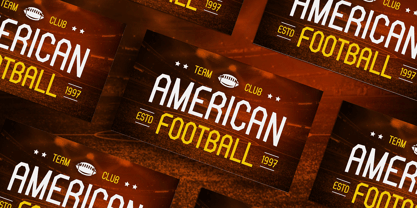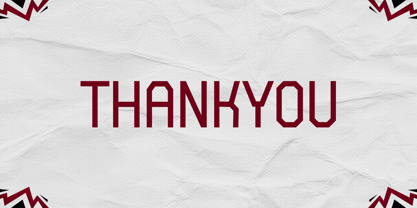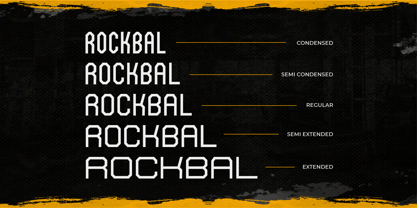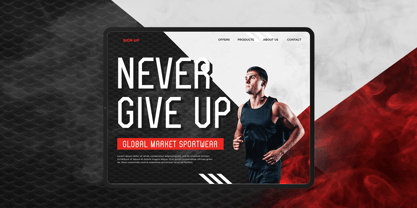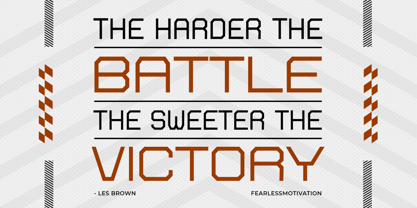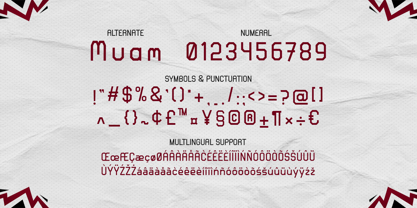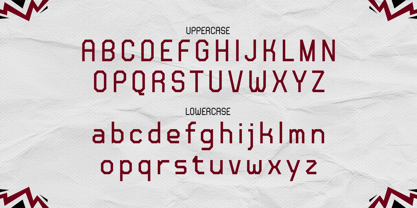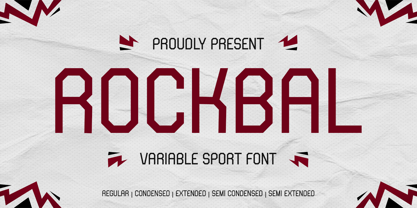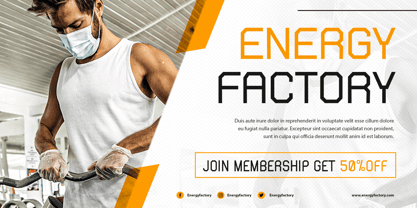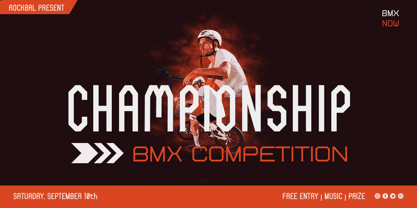
Rockbal
The Rockbal Font Family was designed by Hilmius Akbar and published by Typefactory. Rockbal contains 5 styles and family package options. More about this family
Introducing "Rockbal" - a variable sport font designed to convey energy and dynamism, perfect for athletic branding, posters, and sports-related designs.
With its variable weights and dynamic letterforms, "Rockbal" offers versatility and impact, making it ideal for sports teams, fitness events, and active lifestyle brands.
Embrace the power of "Rockbal" as it effortlessly enhances your designs with its bold typography and athletic spirit.